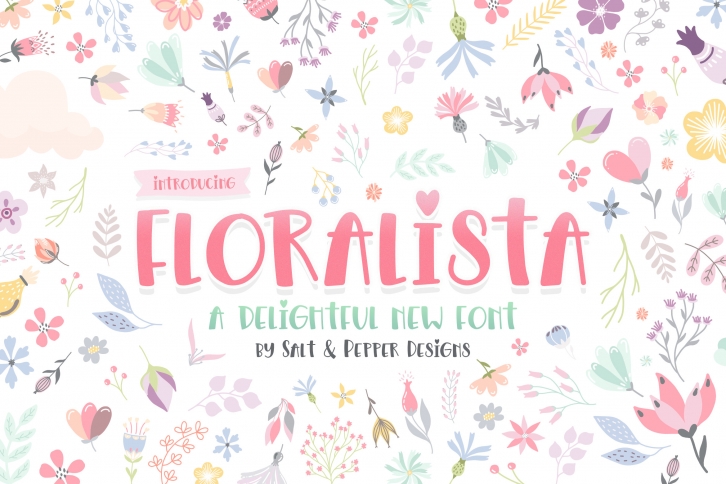
Floralista is a friendly and cute display font. It embodies playfulness and authenticity and is the perfect choice for any children activity or school project.